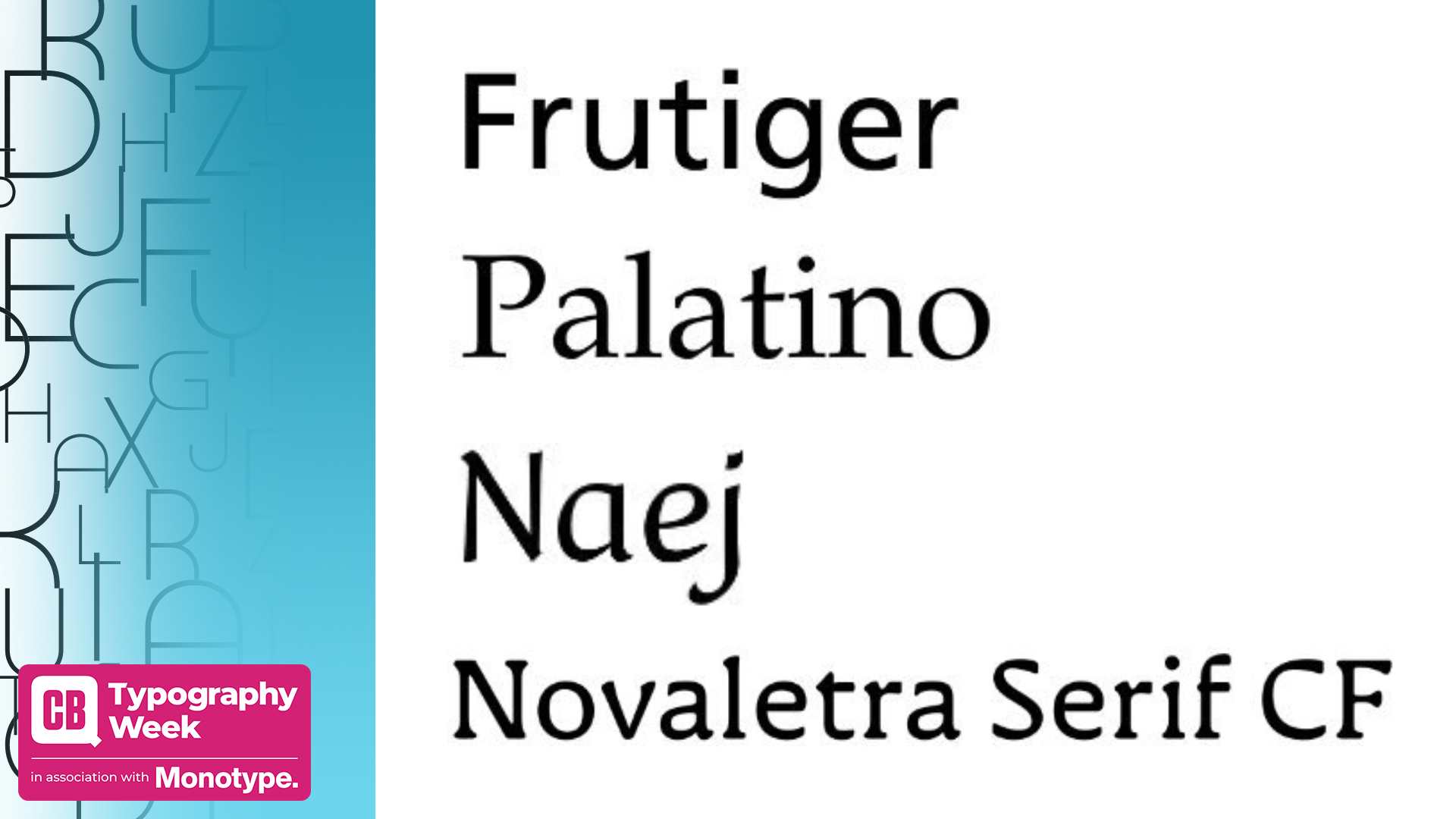
The best accessible fonts
Accessibility matters in design - find the best font families and typefaces to make a difference.
Accessibility is a pillar of great design - it shouldn’t be an afterthought, whether you’re making a poster, a video, a magazine or a website. When you use a clear, legible typeface, you make it much easier for people to understand and engage with your content.
This doesn’t mean your type choices stop being clever or interesting; nor does it mean you have to spend a lot of money to follow the rules, because there are loads of free sans serif fonts and free fonts for designers that happen to be accessible. You’ve probably used a few of them in projects without realising.
To save you trawling the internet (and getting sidetracked by browsing free web fonts), we’ve gathered the best fonts for accessibility, both free and paid.
What are accessible fonts?
Usually, sans serif fonts tend to be more accessible than those with serifs, but there are exceptions, as our shortlist shows. And, just to confuse you, some fonts specially designed for people with dyslexia haven’t had great feedback from the dyslexic community; meanwhile, fonts like Tiresias, designed with the RNIB, may work well for visual impairments, but too many of its letterforms are mirrored (a problem we’ll explain below), causing problems for dyslexic readers.
“Our findings to date show that no one font works for everyone,” says Rick Treitman, Entrepreneur-in-Residence at Adobe’s Readability Initiative, part of the Readability Consortium. “We process information better when we’re able to read fonts that work best for each of us.”
So what generally makes a font accessible? Here are some key aspects:
- Empty· Distinct characters that don’t mirror each other – it should be easy to tell the difference between each character, particularly no mirroring between letters like ‘b’ and ‘d’ and ‘p’ and ‘q’; people with conditions like dyslexia can see these as interchangeable if they’re too similar. Make them different by varying tails and spurs.
- Variation between ‘impostors’, such as capital ‘I’, lowercase ‘l’ and number 1 – many fonts make these near-identical, which can frustrate readers. Imagine constantly typing a password or username wrong because those glyphs look the same.
- More open counterspace – letters with counters, such as ‘a’, ‘e’ and ‘s’, or numbers like 3 and 6, should have a wide gap between the counter and the rest of the form. Think of it like showing an open door rather than a slightly ajar door. This makes them harder to confuse.
- Decent x-height – a greater difference between the baseline of the text and the mean (average) height of lowercase letters. User-friendly designers aim for a very precise x-height of 68-69%. Basically, avoid squashed or low letterforms. list
01. Atkinson Hyperlegible
America’s Braille Institute developed a free typeface for vision-impaired people. It’s named after the Institute’s founder.
Jessica Oddi, a disabled designer, also recommends it: “I’m a big fan of Atkinson Hyperlegible. It has so much information on their website about the thoughtful design and unique characters.”
02. Frutiger®
Adrian Frutiger’s classic typeface, published by Linotype, began as a practical font for signs in Charles de Gaulle Airport. Frutiger® was later expanded and completed to work for projects much smaller than airport signage or displays: think book covers and bank notes. It’s also used by the NHS (mainly Bold or Roman).
03. Georgia Regular
“For older readers, slight serifs such as Georgia produce better reading results,” says Rick Treitman, from Adobe’s Readability Initiative.
Georgia, a Microsoft staple, is a rounded and reliable serif choice with horizontal top serifs that are easier to spot on a large scale or a high-resolution screen. Legibility comes through with choices like higher ascenders (those taller lower-case letters, like ‘l’ and ‘d’) than capitals.
04. Inconstant Regular
Here’s a project by Daniel Brokstad for Dyslexia Scotland, giving an alternative to the much-hated (but super legible) Comic Sans. There are lots of accessible variability elements you can tweak to make it your own (like variable ascenders and descenders), two stylistic sets, plus the very individual letterforms really stand out, leaning at different angles. Great for posters, tshirts and more.
05. Lexend Deca
The APA Style Guide says Lexend Deca, part of the variable Lexend font family, is ‘DRD-friendly’ – suitable for people with developmental reading disorders. Inspired by Quicksand, this was designed by an educational therapist, Dr Bonnie Shaver-Troup, working with Google to improve readability. In 2021, it expanded to become Readex, which includes Arabic scripts.
06. Mooli Regular
Use Mooli for free on Google Fonts
Think of Mooli as the whiteboard writing of your favourite schoolteacher, upgraded by woodcarver and type designer Vernon Adams. It’s clear, crisp and friendly, with quirks to separate commonly mixed-up letters. The upwards sweep of the eye for ‘e’ (using a diagonal stroke) is a nice touch. This font would suit family-friendly marketing, like toy packaging or modern museum leaflets.
07. Museo Slab 300
Download Museo Slab at MyFonts from £7, or find on Adobe Fonts
A great slab serif font for titles and headlines, recommended by SiteImprove, Museo Slab was designed by Jos Buivenga at exljbris. There are six different weights in the font family, but stick to the lightest three (100, 300, 500) with counters and apertures open enough for easy reading. It would fit menus, exhibition guides and annual reports.
08. Naej Std Regular
Download Naej at MyFonts from £39.99
A nice humanist font choice for children’s books (its original purpose), with large counters and elegant descenders. Blondina Elms Pastel, its designer, is also a calligrapher. Naej’s Renaissance feel would also suit history-themed events, wedding invitations, or the current fairycore trend: think craft fairs and art workshops.
09. Novaletra Serif CF Regular
Download Novaletra Serif CF at MyFonts from £27
Connary Fagen Type Design developed this as a complete type family, with seven varying weights and Italic versions. There’s an overall nostalgic feel, with rounded terminals, and barely curved shoulders on ‘m’ and ‘n’. Novaletra Serif adapts to many different languages, including Cyrillic, and defines itself in editorial work at any size.
10. P22 Underground
Download at MyFonts from £4 or find P22 Underground on Adobe Fonts
You’ll definitely recognise this digital adaptation of Johnston, the iconic type family used for across the London Underground. Graphic designer Mike Bell uses P22 Underground to make Tube-inspired maps, saying: “it’s the only font I’ve used across all my designs.” It’s not just for Tube enthusiasts, also gracing book covers and business cards.
11. Palatino
Buy Palatino at MyFonts from £47.99
This was designed for Linotype in 1948-50 by the late Hermann Zapf, who also made Dingbats and Optima. Palatino was named after a 16th-century calligrapher. It’s popular for typesetting books, being clear and smart. A modernised version, Palatino Nova, was created by Zapf and Akira Kobayashi.
12 and 13. Sincopa Nina and Sincopa Ella
Download Sincopa Nina and Ella from Adobe Fonts
Sincopa is a three-font family, each named after iconic singers: Billie Holliday, Nina Simone and Ella Fitzgerald. Nina and the bolder Ella are a joy to use, creating movement and ‘offbeat rhythms’, according to designer Fer Cozzi. Try them in music promotions, but save Ella for occasional emphasis.
14. Spencer Light
Download Spencer at MyFonts from £22.95
The Spencer type family was designed at The Northern Block by Sofie Beier, known for her typography books. She named it after Herbert Spencer, a teacher who specialised in legibility at the Royal College of Art. Organic and interesting, the family has 10 variants, including gently slanted italics. It would fit high-end fashion and homeware marketing.
15. Thorngumbald
Buy Thorngumbald at MyFonts from £23
“My approach to accessibility was reducing similarity, symmetry and repetition across characters, giving each glyph its unique identity,” says designer Thom Milson, of Fettle Foundry.
“For example, the lowercase ‘i’ has an upper serif and the lowercase ‘n’ has a sloped upper stem, not the normal flat left edge. Reading is easier at both a distance and small text sizes.”
Clean and minimalist, Thorngumbald would suit magazines or packaging.
16. Verdana
Download Verdana on MyFonts from £29
A stone-cold classic recommended by disability charity Scope, Verdana was developed by Matthew Carter at Microsoft for screen displays. It continues to be used today, even as a default font on Hotmail, and newbie Verdana Pro is also available for Windows 10. However, some letterforms could do with more originality.
Now that you’ve got a sense of accessible type options and the best fonts to try, don’t wait to use them in your next project. The last word goes to Thom Milson, of Fettle Foundry, who sums up why accessible type is so important:
“I believe it’s entirely possible to create something that is both accessible and full of character. In fact, I don’t see how a design can be considered successful if it intentionally excludes people… we have a responsibility to guide our clients towards more informed decisions.”